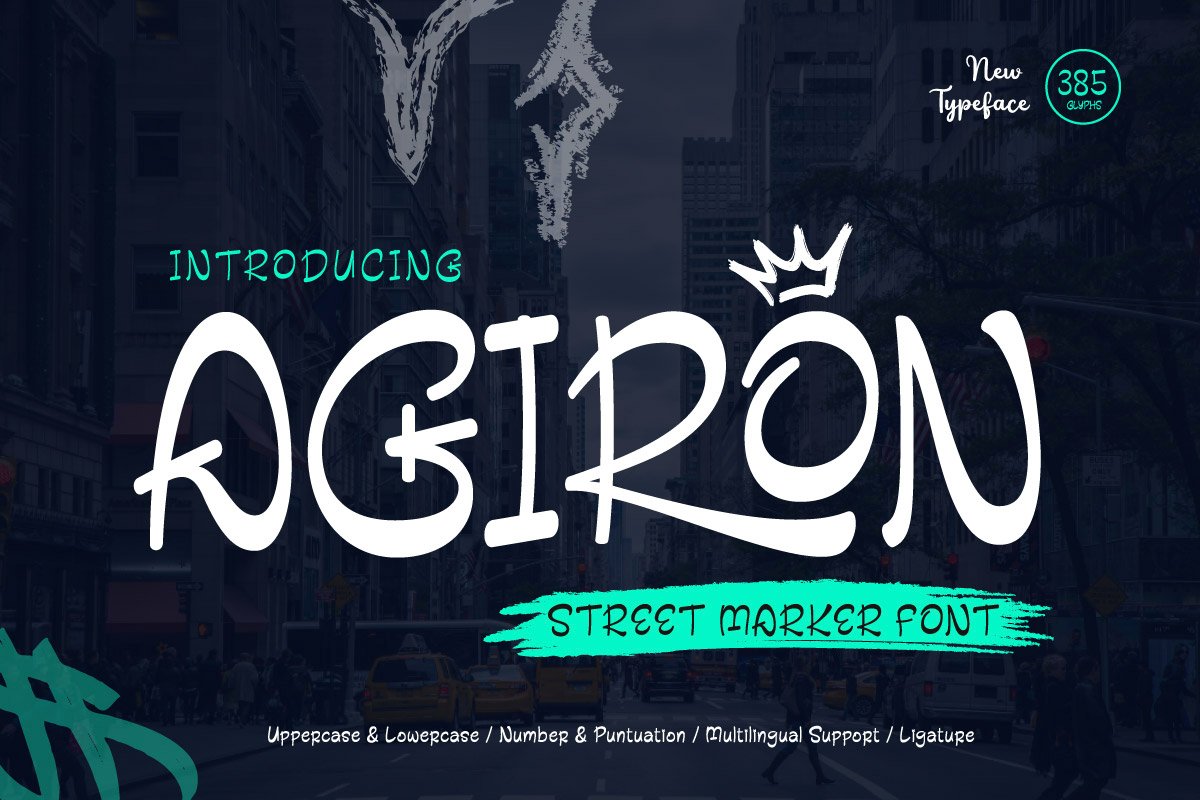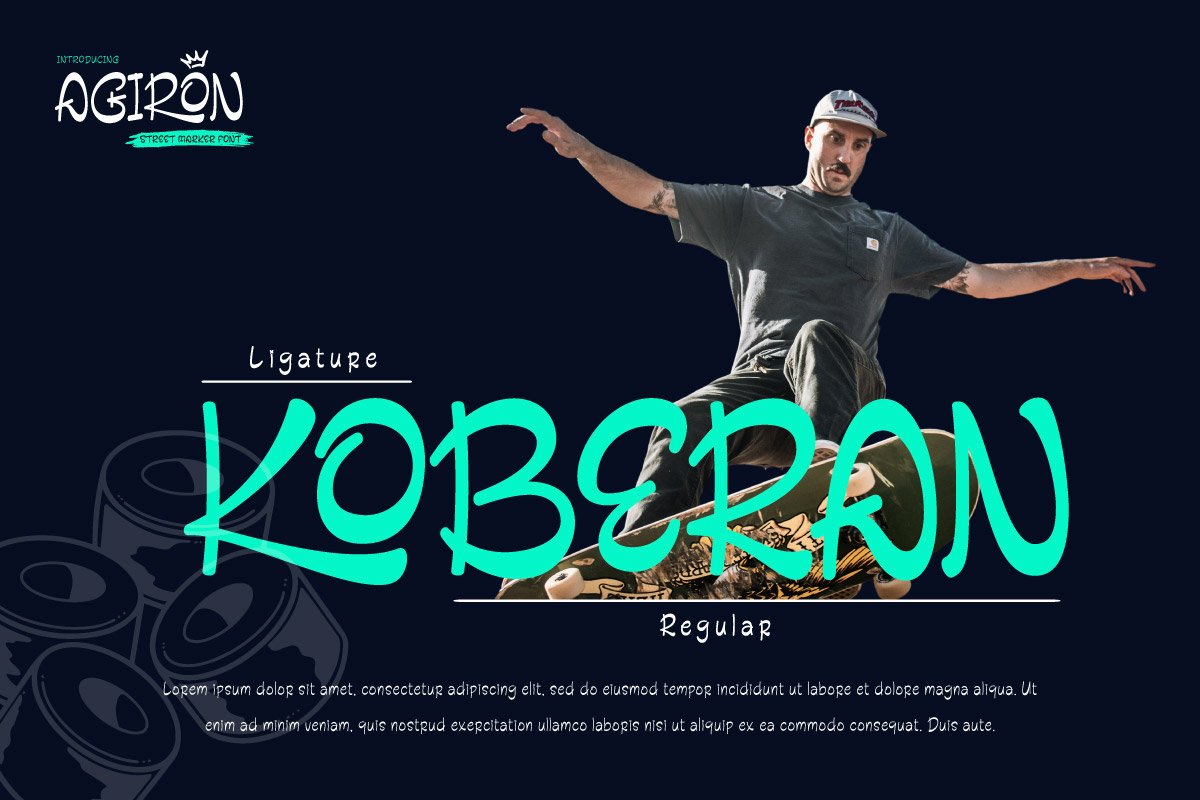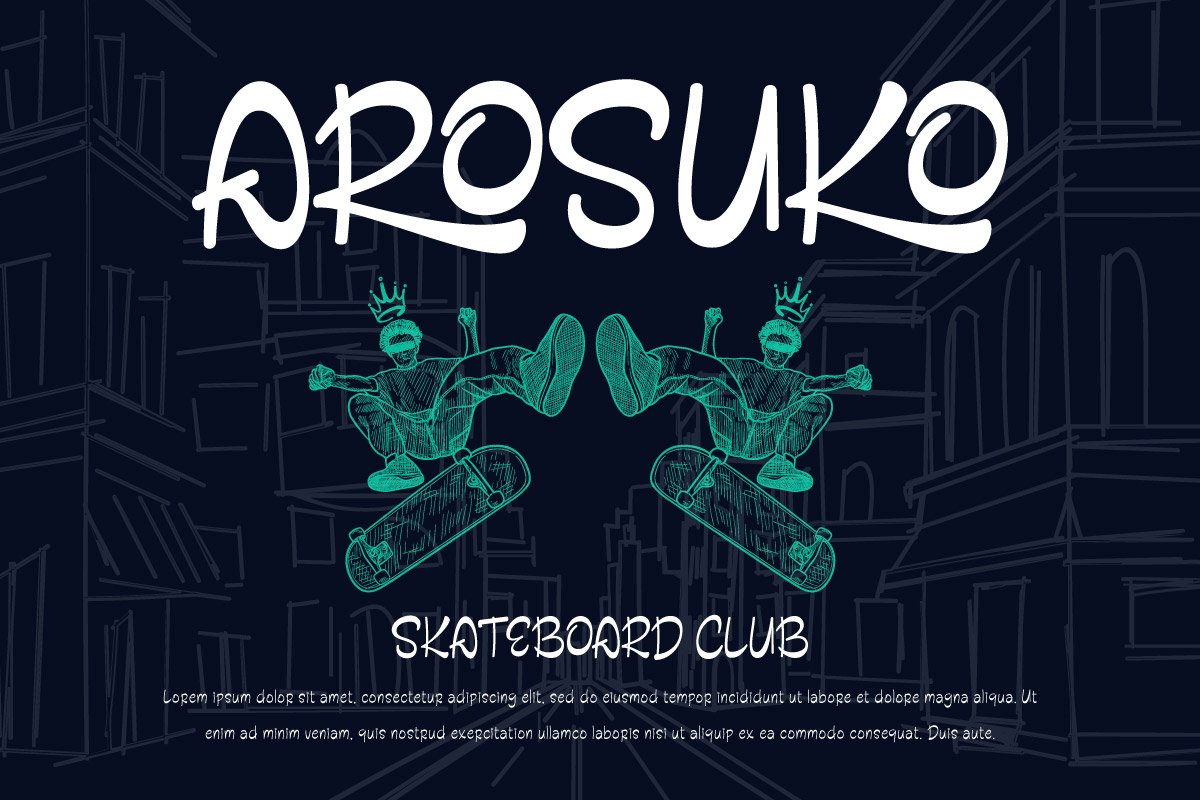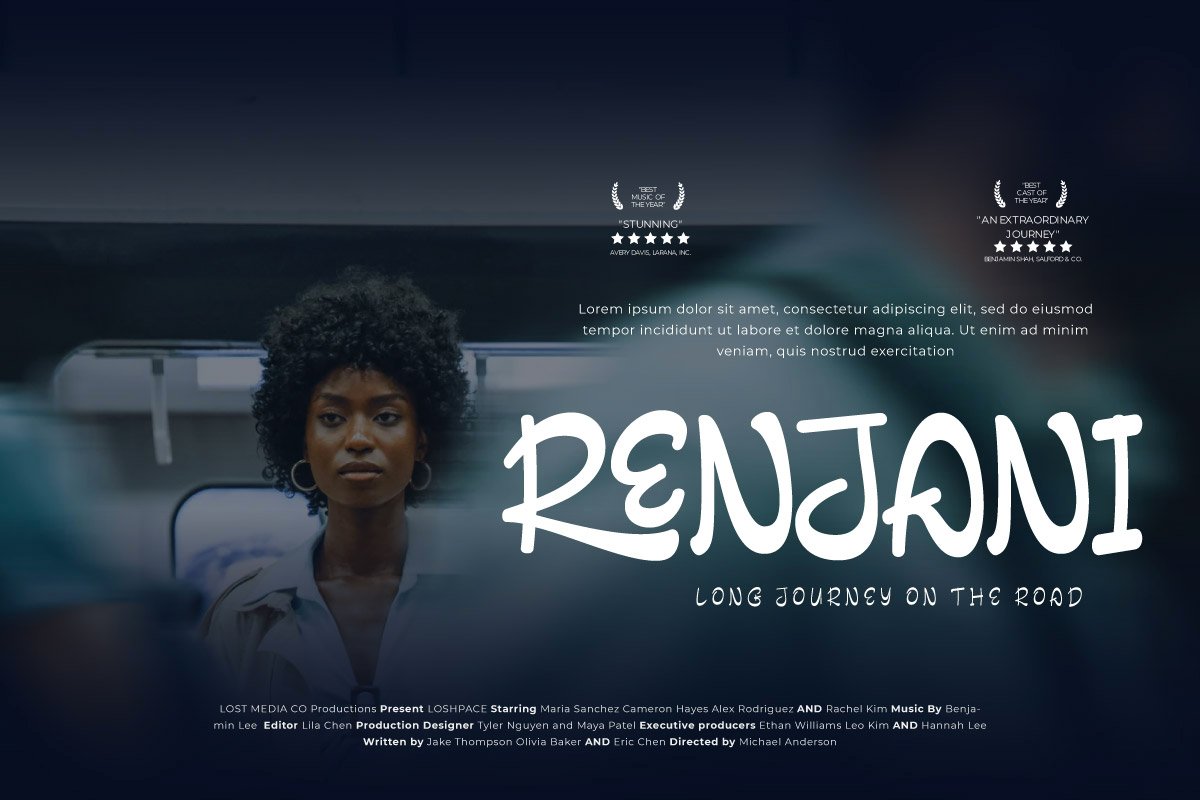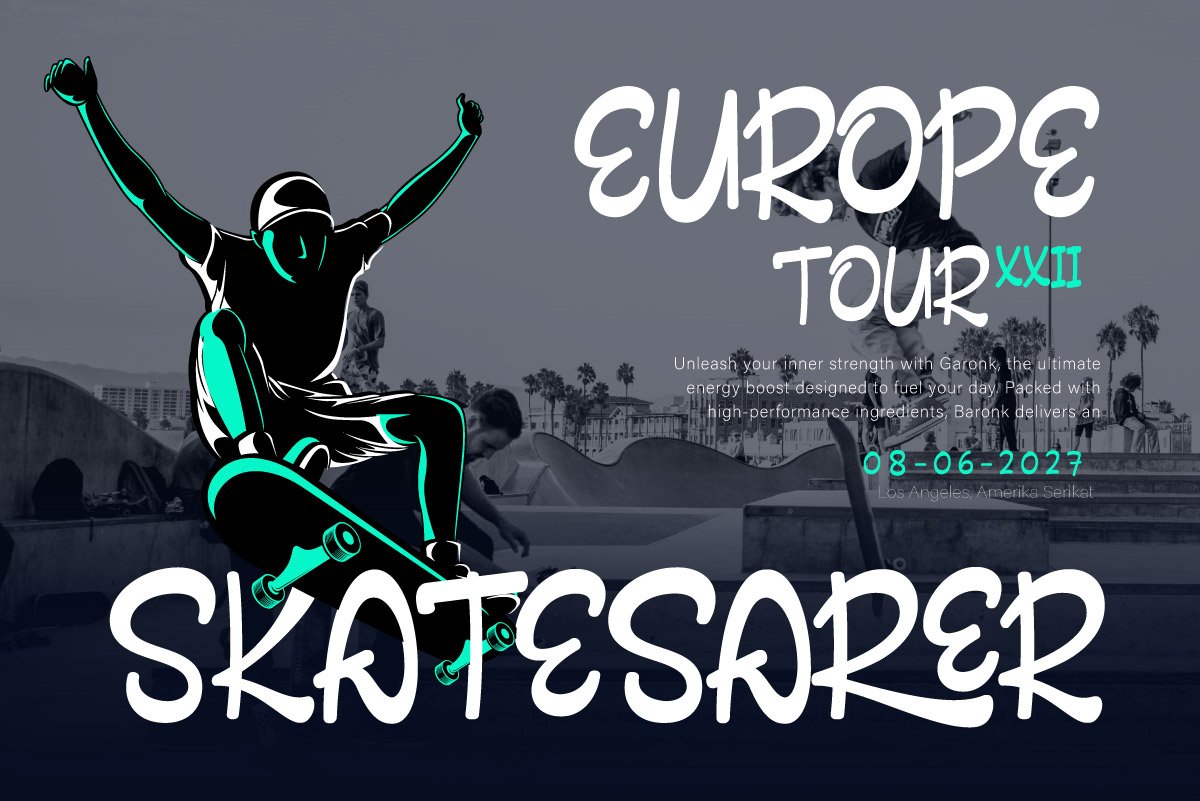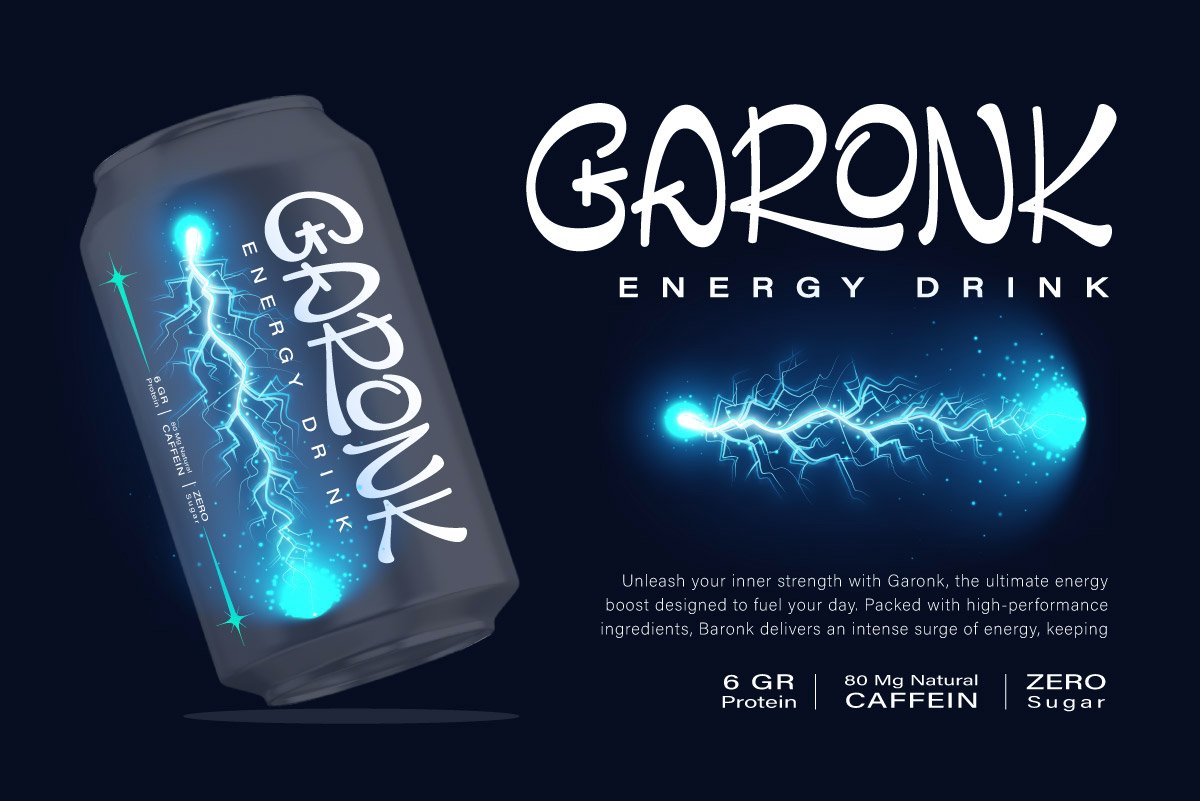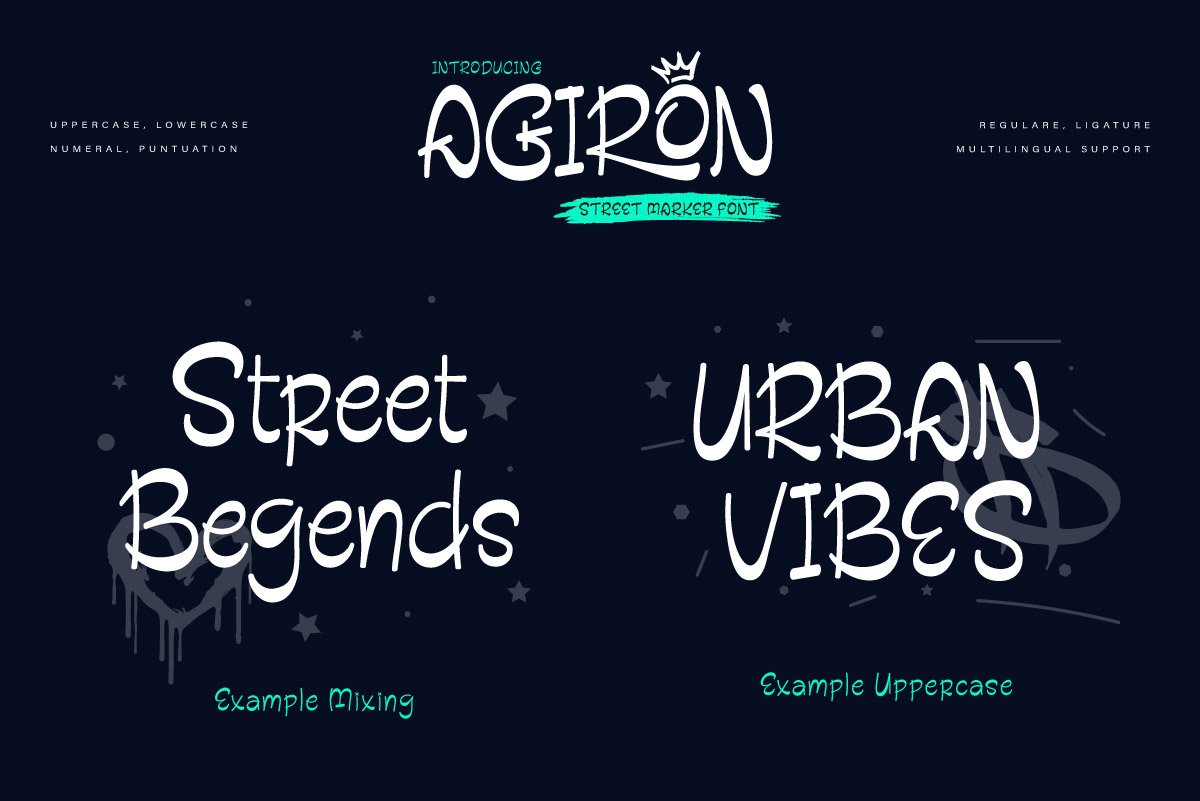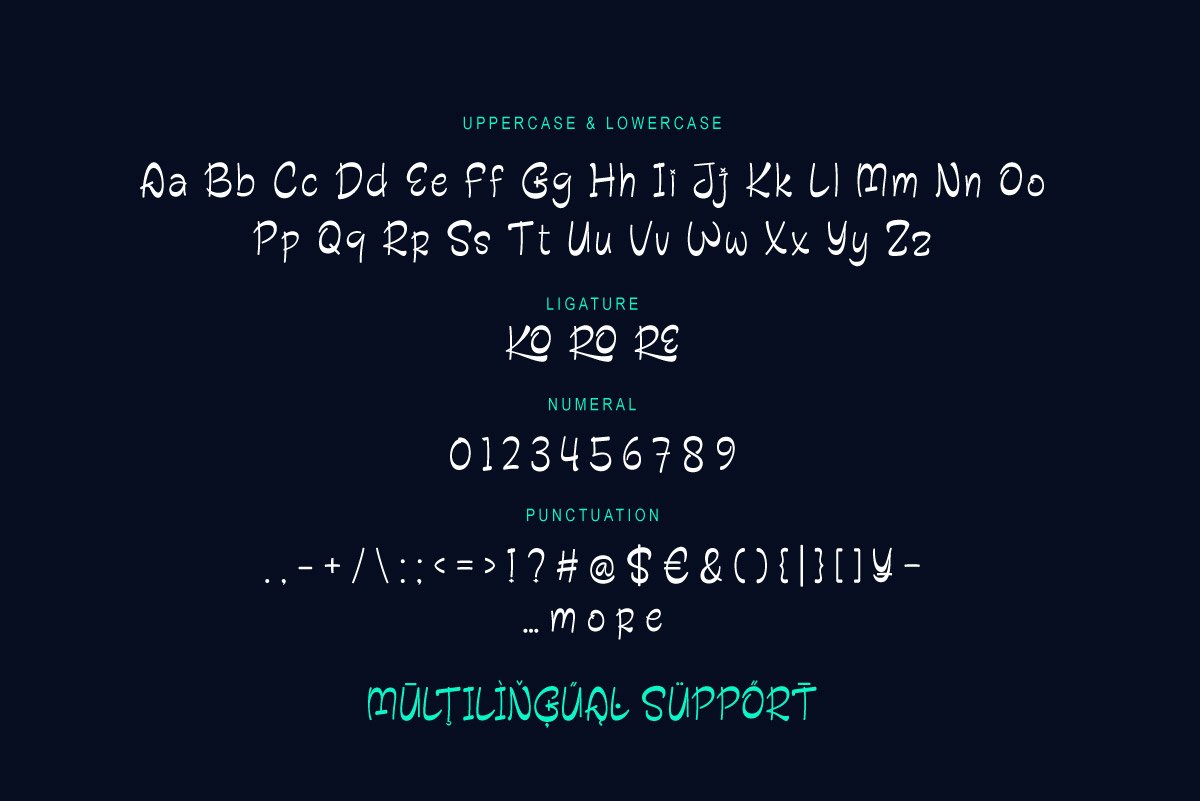
Agiron – Graffiti Display Font
Agiron is a bold graffiti-inspired display font that brings the raw energy of street art into your designs. With its marker-like strokes and expressive details, this typeface captures the essence of urban culture—free, daring, and full of attitude.
Designed for modern creatives, Agiron works seamlessly in posters, album covers, apparel designs, logos, and digital graphics that demand a strong street-style identity. Each letter carries a hand-drawn feel, giving your text a unique personality that stands out effortlessly.
Whether you’re creating edgy branding, urban-themed merchandise, or eye-catching headlines, Agiron delivers a perfect balance between artistic flair and readability. It’s more than just a font—it’s a statement of bold expression and modern street aesthetics.